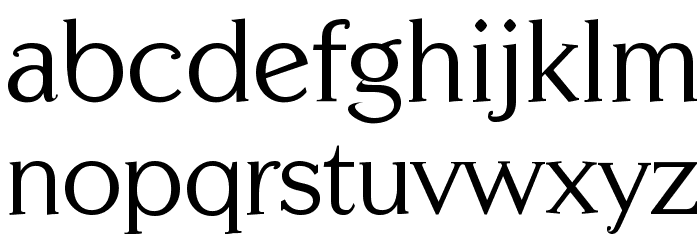
Centabel Book Font
This font features a classic serif style with elegant and refined strokes. The characters exhibit a balanced proportion, with slightly elongated serifs that add a touch of sophistication. The uppercase letters are bold and commanding, while the lowercase letters maintain a graceful flow. The numerals are clear and distinct, ensuring readability. Special characters are well-integrated, maintaining the overall aesthetic. The font's design is versatile, suitable for both formal and contemporary applications, making it ideal for a wide range of projects.
A classic serif font with elegant strokes and balanced proportions.
- Proposed Projects: Ideal for editorial design, book covers, formal invitations, and branding projects requiring a touch of elegance.
- Overall Style: Classic
- Use Case: Headlines, Body text, Logos